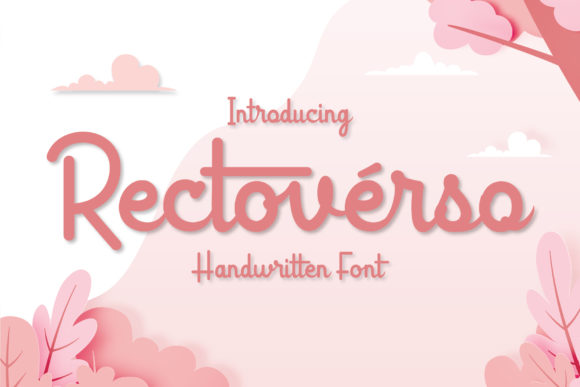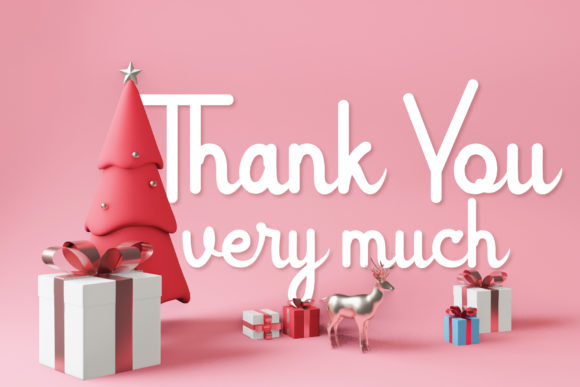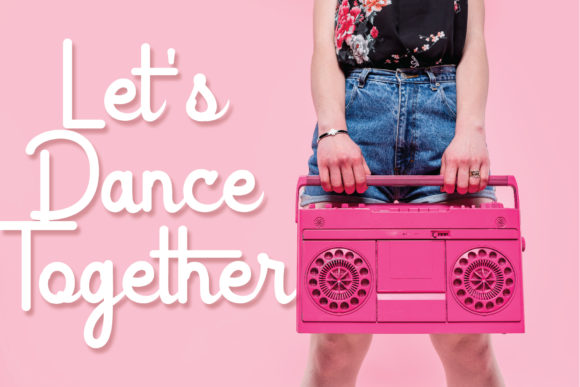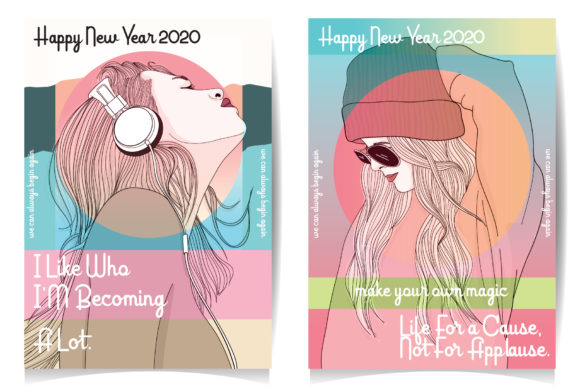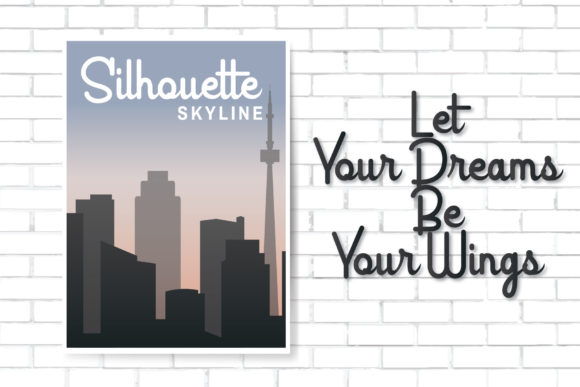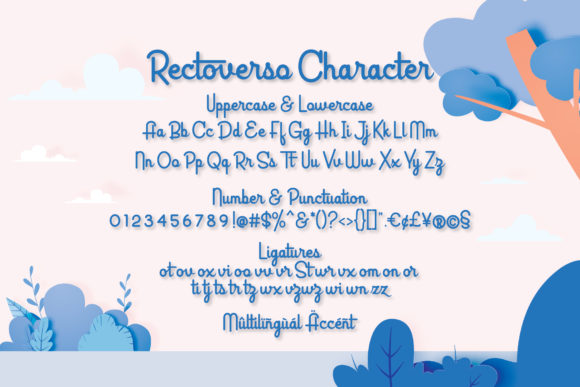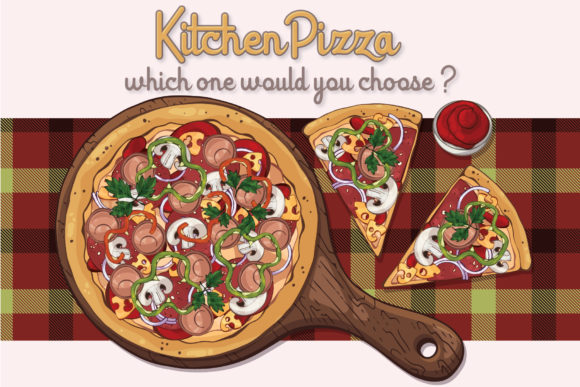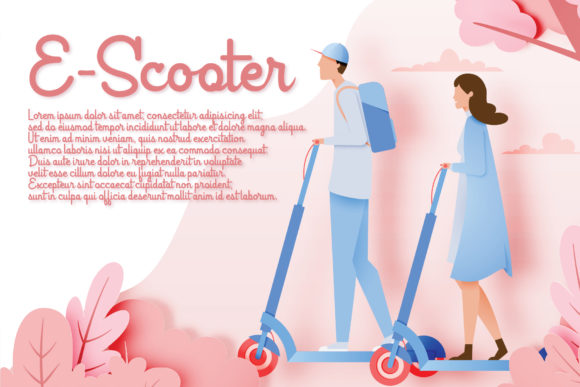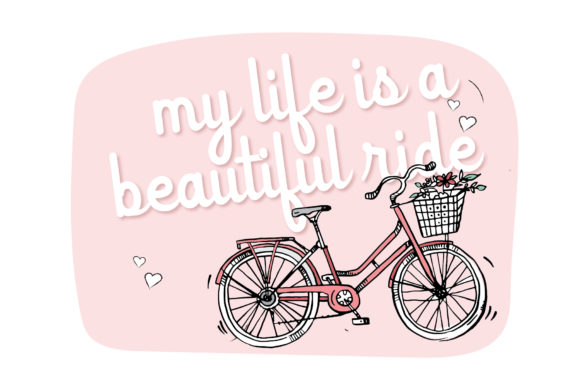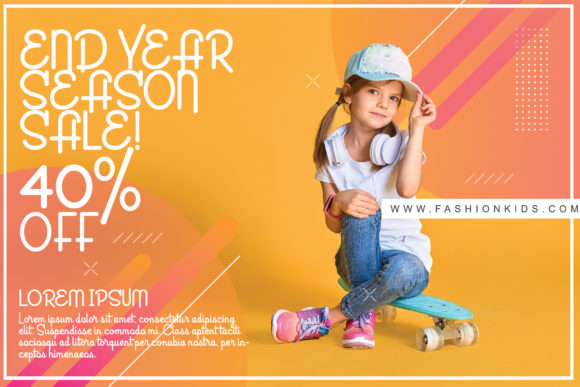
Rectoverso Script Font
About Rectoverso Script Font
Rectoverso is an incredibly playful and unique handwritten font that will turn any craft project into a piece of art.